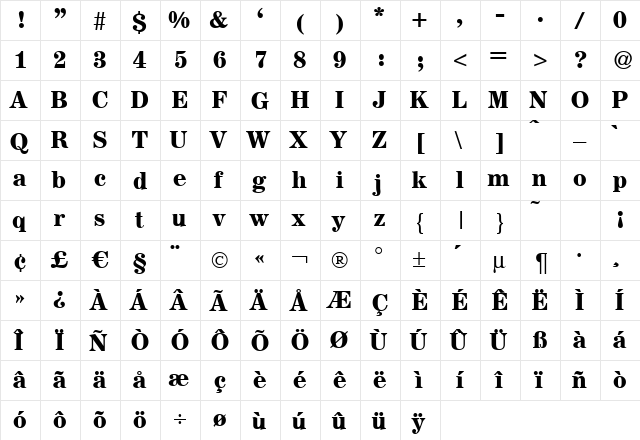
A850-Roman Bold
Design Context for A850-Roman Typeface
A850-Roman is a composed and adaptable typeface that performs quietly and consistently across a wide range of design contexts. The heavy weight commands attention and anchors typographic hierarchies.